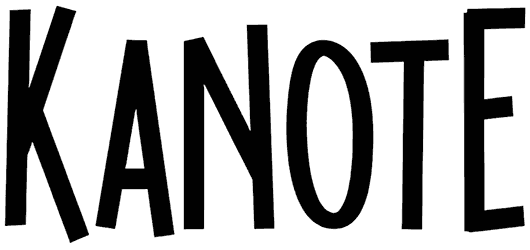
Kanote Font
A more refined look can be achieved with the help of a fancy sticker font like Kanote. Kanote’s eye-catching design makes it stand out and a top choice for apps, flyers, branding, books, and any other project that could benefit from a relaxed and friendly vibe, although it lacks lowercase letters.